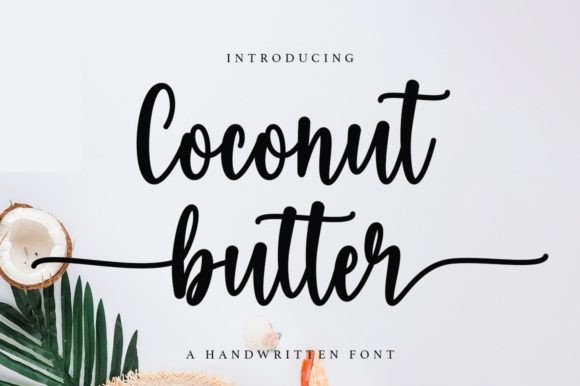
Journey into a world of elegance and charm with Coconut Butter Font, a captivating script typeface born from the creative minds at Wahyu Studio. Immerse yourself in the beauty of handwritten letters, where each stroke and curve tells a story. Let your designs blossom with a touch of romance and sweetness, as the characters of Coconut Butter Font dance along the baseline, adding a luxurious spark to every project.
Indulge in the versatility of Coconut Butter Font, effortlessly flowing from wedding invitations to heartfelt letters, from branding projects to social media posts. Its enchanting style adds a personal touch to any creation, making your words come alive with a timeless charm. Elevate your designs to new heights, capturing the hearts of your audience with the allure of Coconut Butter Font.
Unleash your creativity with the PUA encoding of Coconut Butter Font, granting you access to a treasure trove of glyphs and ligatures. Explore the endless possibilities as you effortlessly craft stunning compositions, adding intricate details and flourishes that set your designs apart. Experience the joy of seamless design as Coconut Butter Font opens up a world of artistic expression.
Embrace the splendor of Coconut Butter Font, a font that captivates and enchants. Its romantic essence and elegant charm will leave an indelible mark on your designs, evoking emotions and creating lasting connections with your audience. Discover the beauty of handcrafted typography and elevate your projects to new realms of sophistication with Coconut Butter Font.